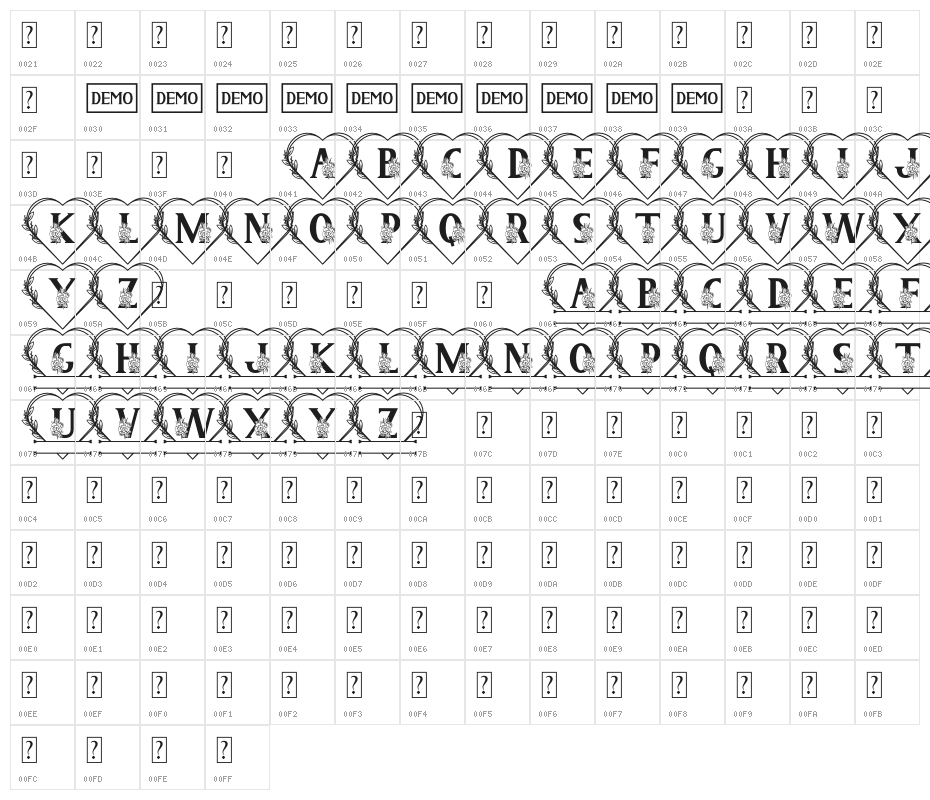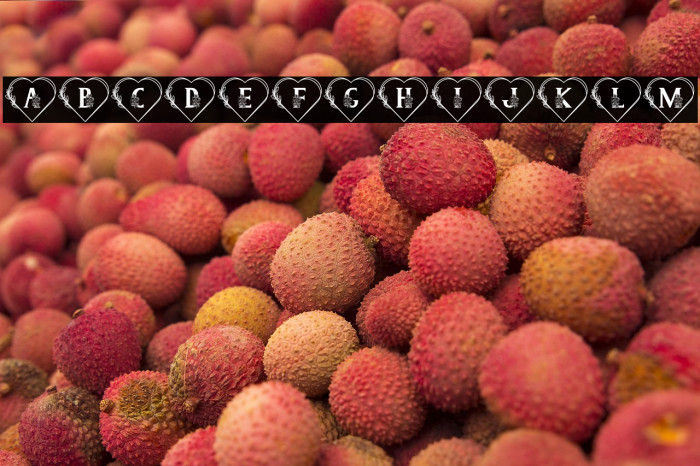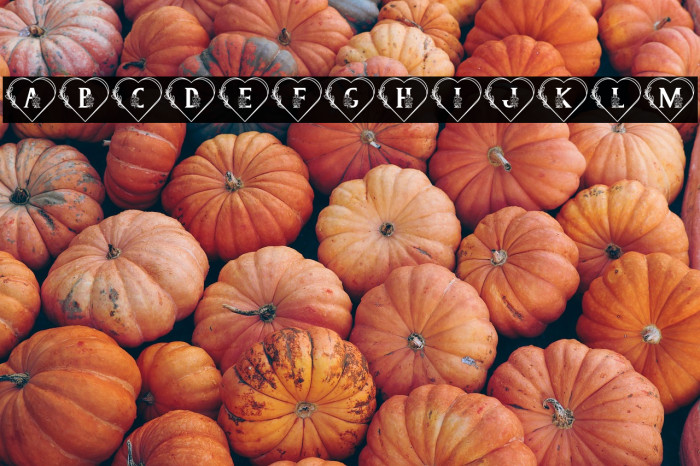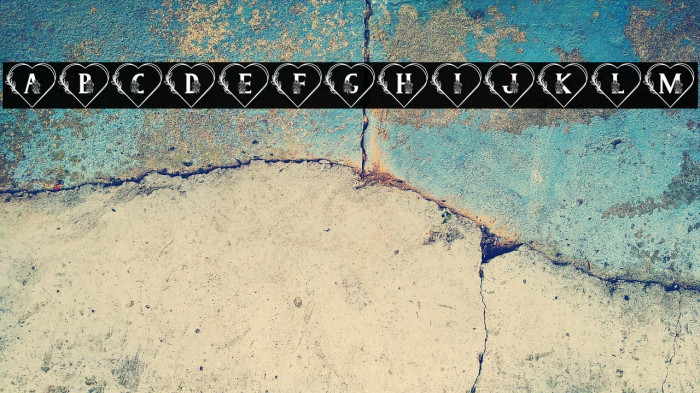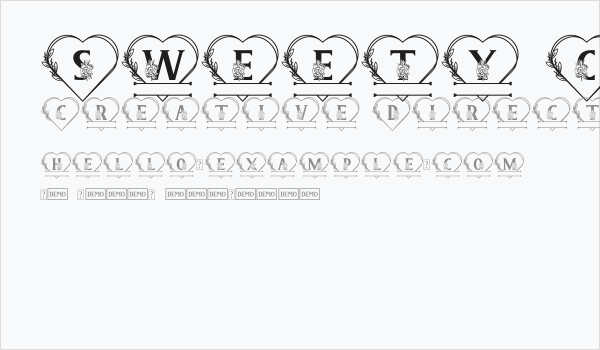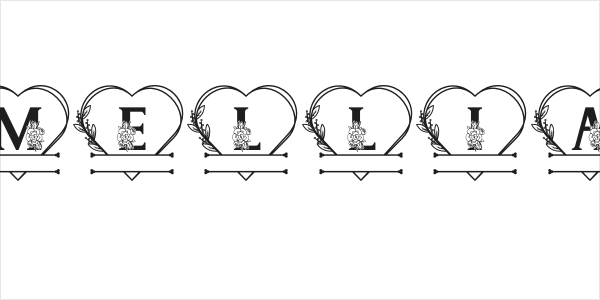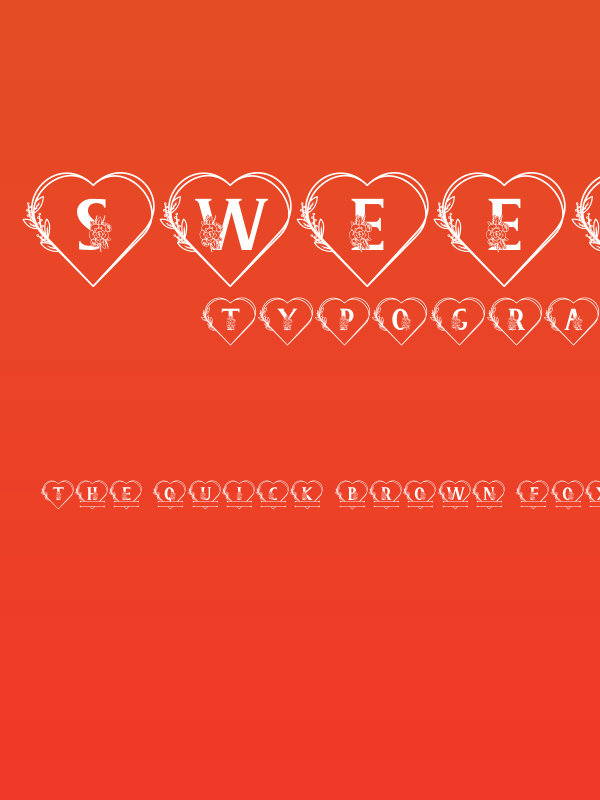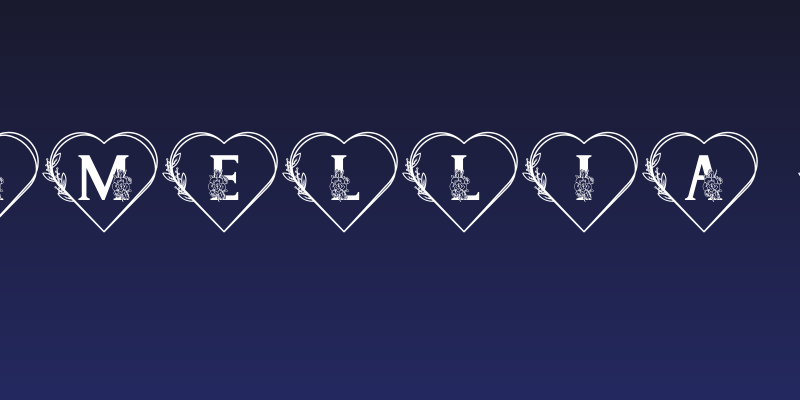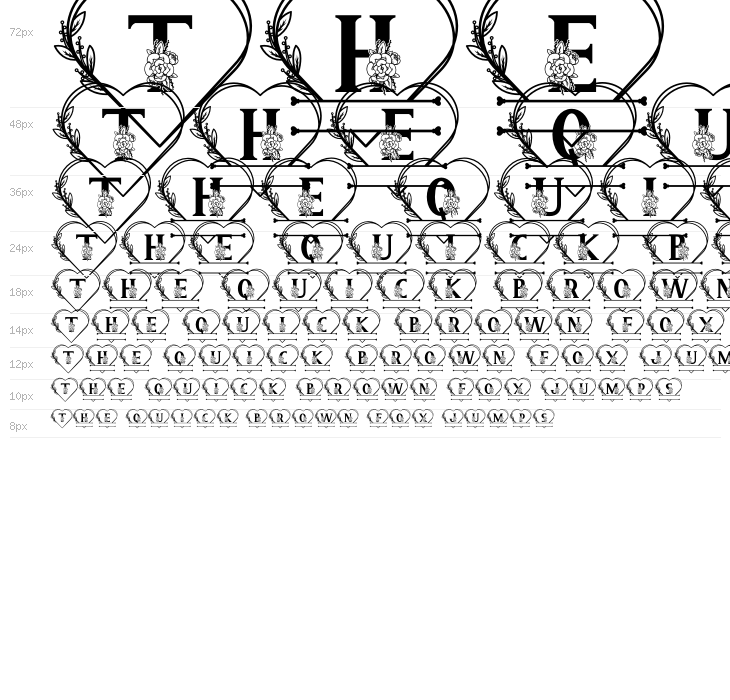
Sweety Camellia Monogram Font
Sweety Camellia Monogram Description
This decorative font features uppercase letters encased within heart shapes, adding a romantic and whimsical touch. Each letter is adorned with floral embellishments, enhancing its ornate appearance. The design is consistent across the alphabet, maintaining a cohesive look that is both playful and elegant. The font's unique style makes it ideal for projects that require a touch of charm and creativity. It is particularly suited for wedding invitations, greeting cards, and other romantic-themed designs. The heart motif and floral details make it stand out as a distinctive choice for decorative purposes.
| Proposed Projects | Ideal for wedding invitations, greeting cards, and romantic-themed designs. |